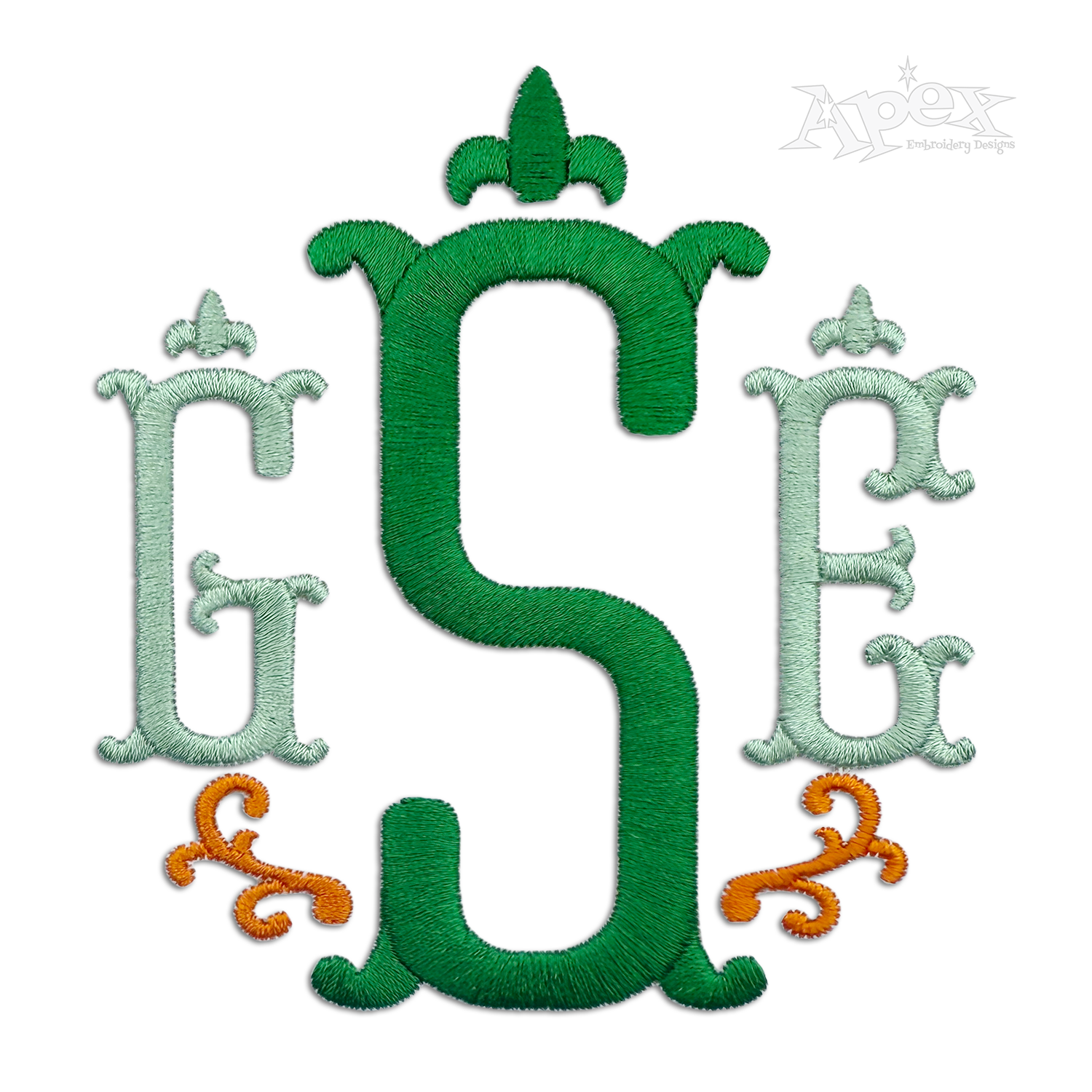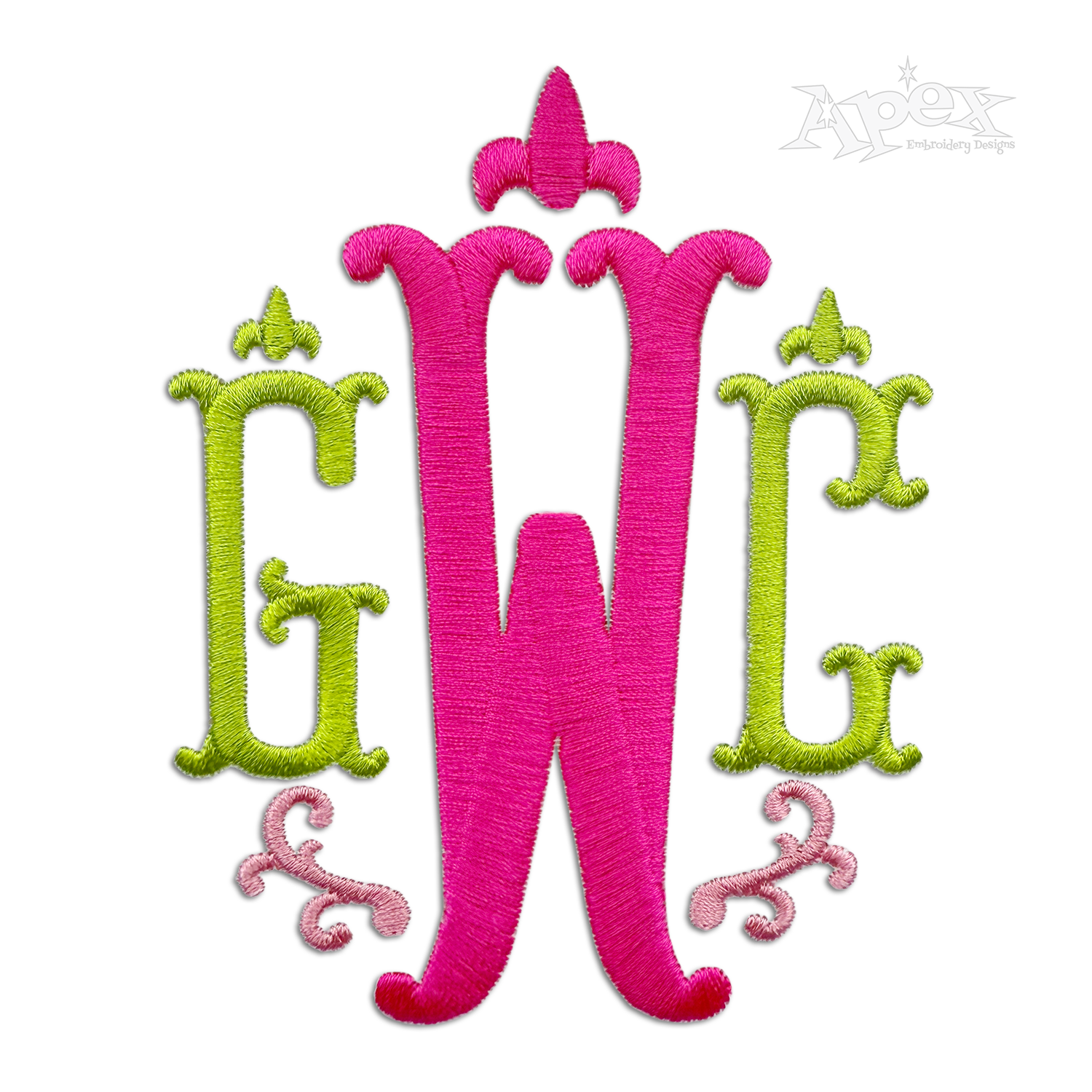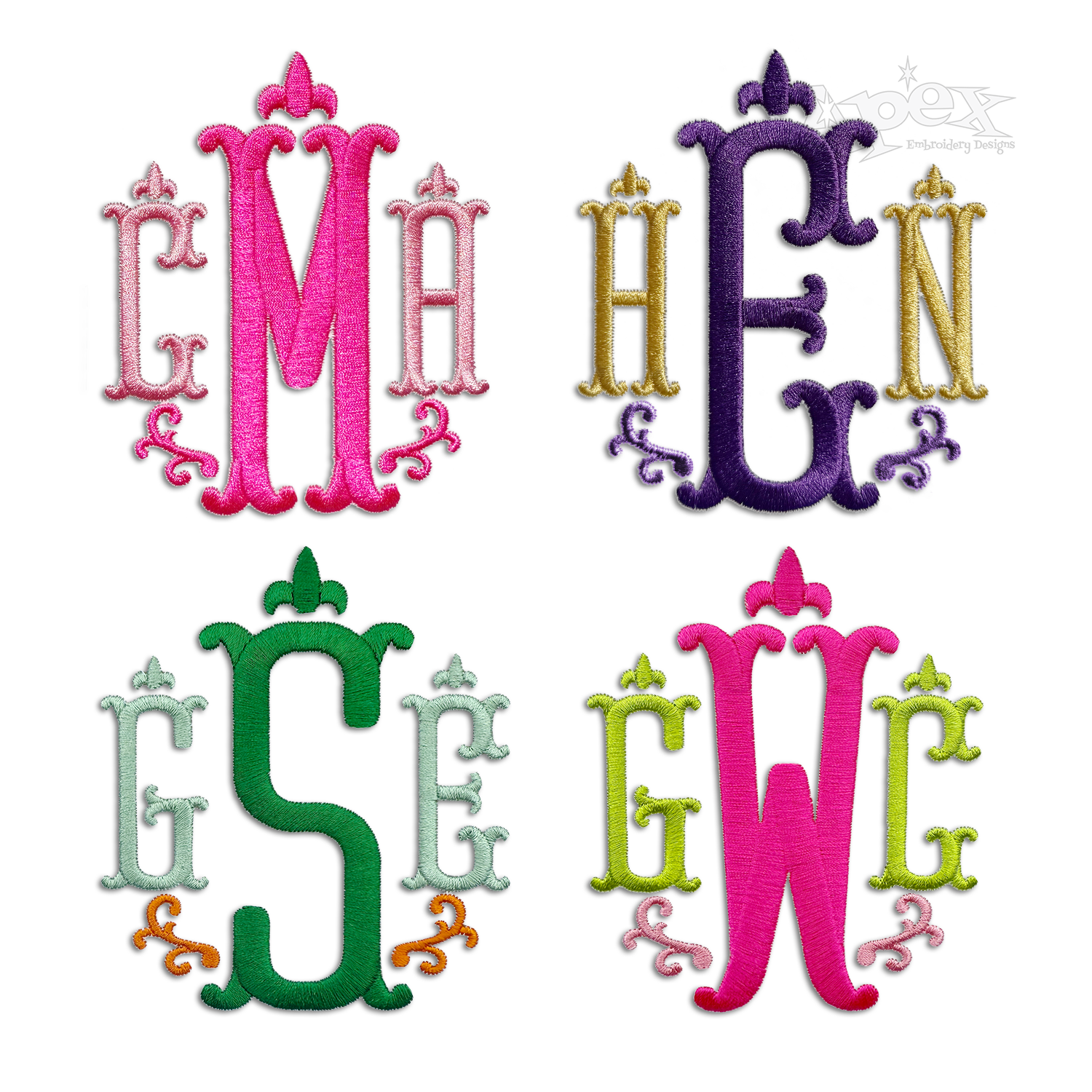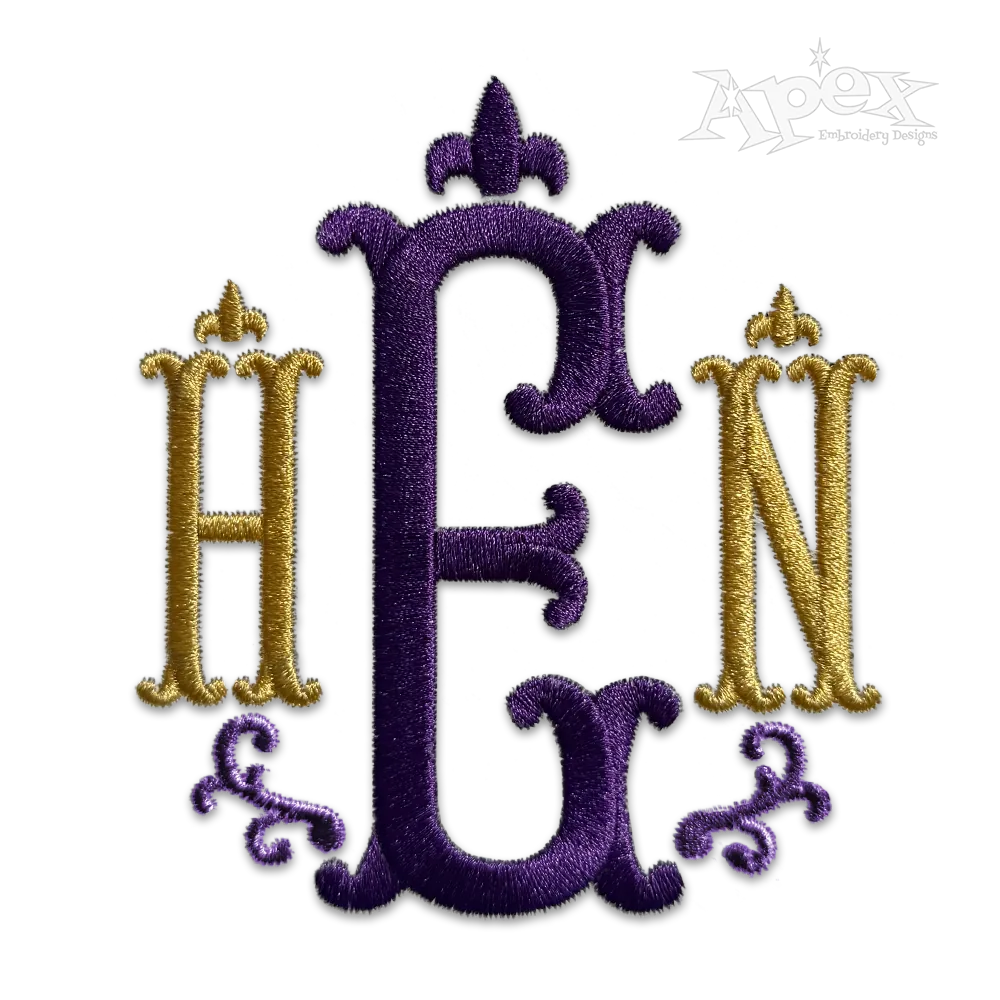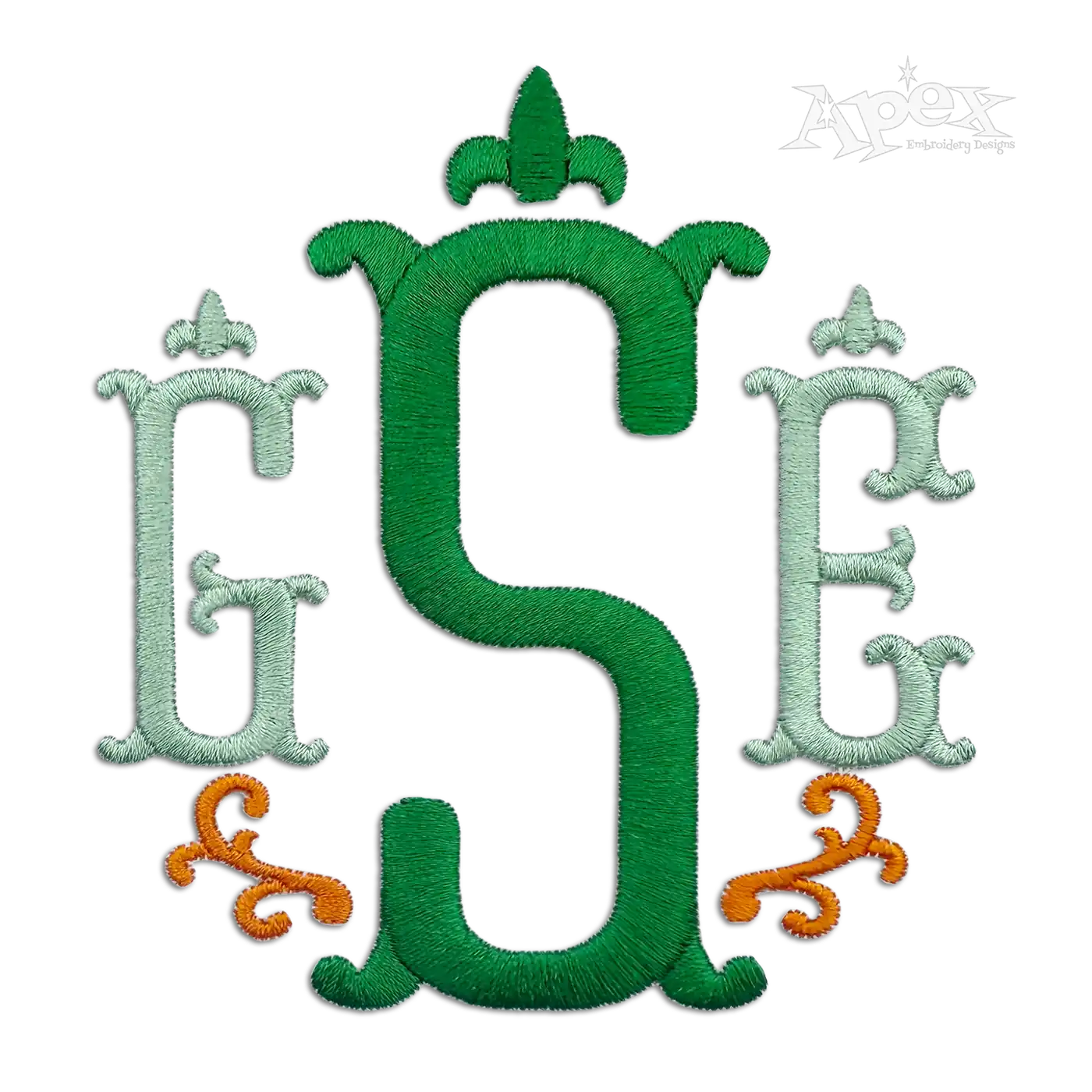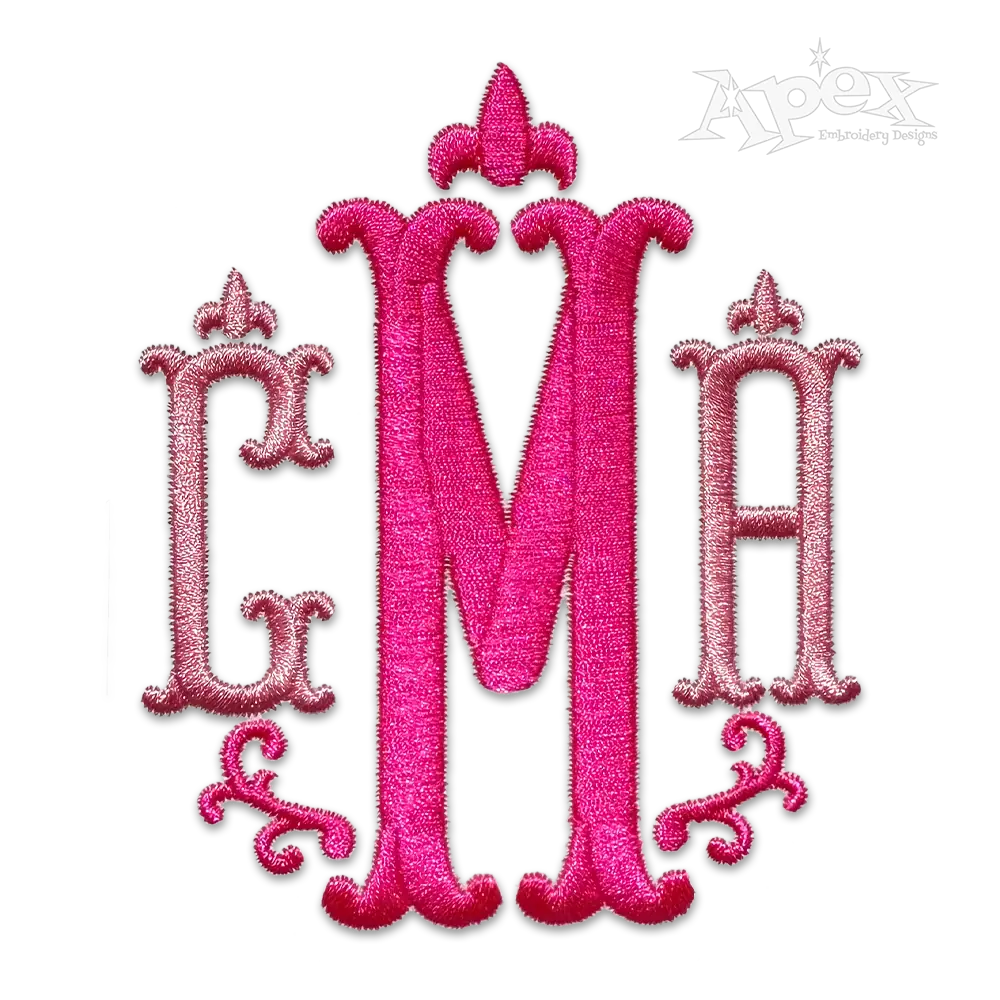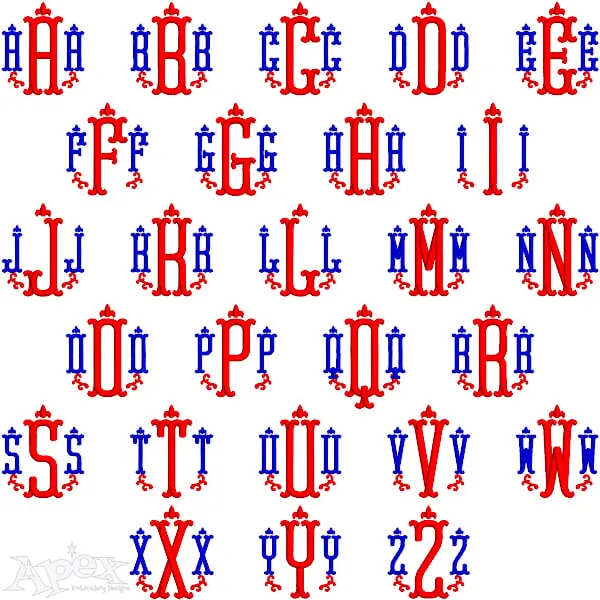
Regal Fleur Monogram Embroidery Font
Born from a reverie of historic European estates and the ornamental grandeur of French heraldry, the Regal Fleur Monogram Embroidery Font was digitized to bring aristocratic poise to the modern embroidery hoop. We sculpted each character to balance the timeless dignity of classical roman letterforms with the lavish romance of blooming fleur-de-lis embellishments. As needle and thread trace each curve, the light catches the multidirectional satin stitches, evoking the tactile luxury of hand-carved gilded woodwork and antique crests. Whether gracing soft bridal silks or crisp heirloom flax, this font transforms plain textiles into stately personalized treasures.
Regal Fleur Monogram Craft & Letterform Details
What sets the Regal Fleur Monogram apart is the thoughtful engineering hidden beneath its decorative grandeur. Traditional fleur-de-lis motifs can easily become dense or heavy under a needle, so each petal, scroll, and leaf flourish was manually drafted with tapered satin column paths. We calibrated stitch angles to catch the light from multiple directions, creating an almost embossed, three-dimensional relief that mimics hand-embroidered bullion and goldwork.
Underlay stitch mapping was engineered specifically for each sizing tier to reinforce the architecture of the letterforms without stiffening the surrounding fabric. Slender serifs resolve into crisp, feather-light terminal points, while the dominant vertical stems maintain full, velvety coverage. The result is a fluid, snag-resistant stitchout that glides through high-speed production while retaining the soft hand-feel and visual soul of an authentic heirloom craft.